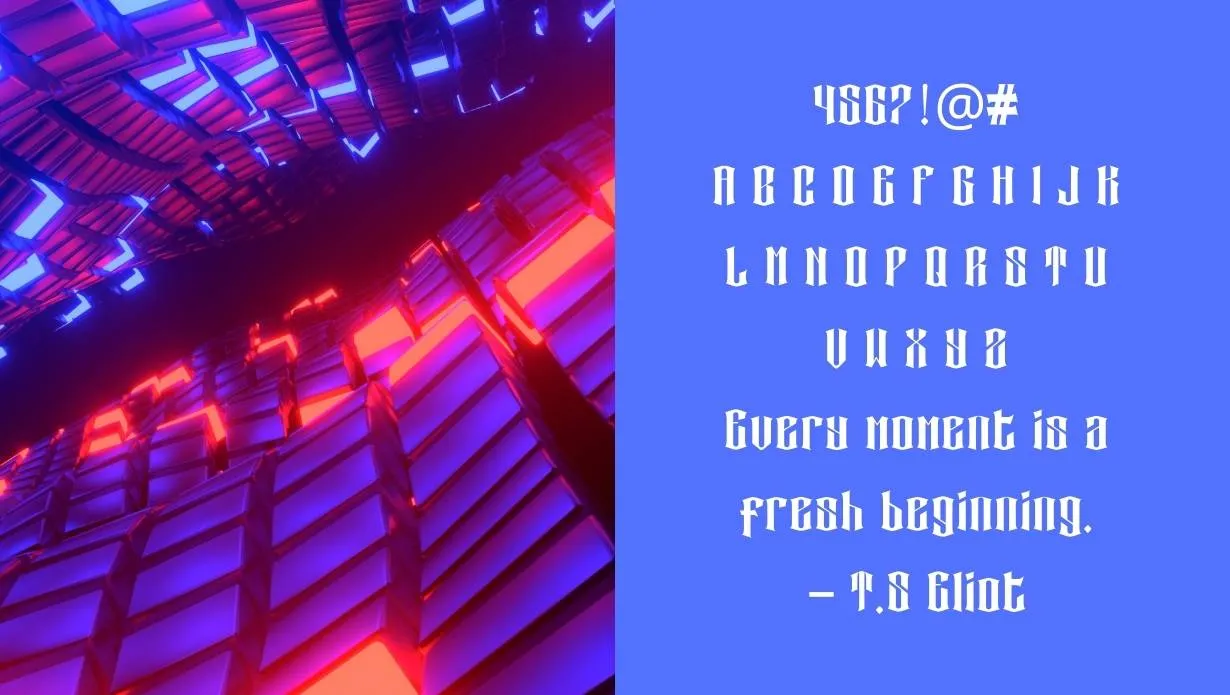
In this post, we introduce a new stylish and tremendous typeface named Zabur Font. This stylish typeface was developed by a very elegant designer named Ridwan Fatilah. He is a very famous designer who has created many other stylish fonts as well.
This typeface belongs to the gothic font family. And it comes with two various weights including regular and bold.
| Name | Zabur Font |
| Designer | Ridwan Fatilah |
| Style | Gothic |
You can use this typeface for various purposes such as branding, title making, printing, and so on. It is very famous because of its stylish look and feel. Its alternative ed gothic font is best for a lot of interesting designs.